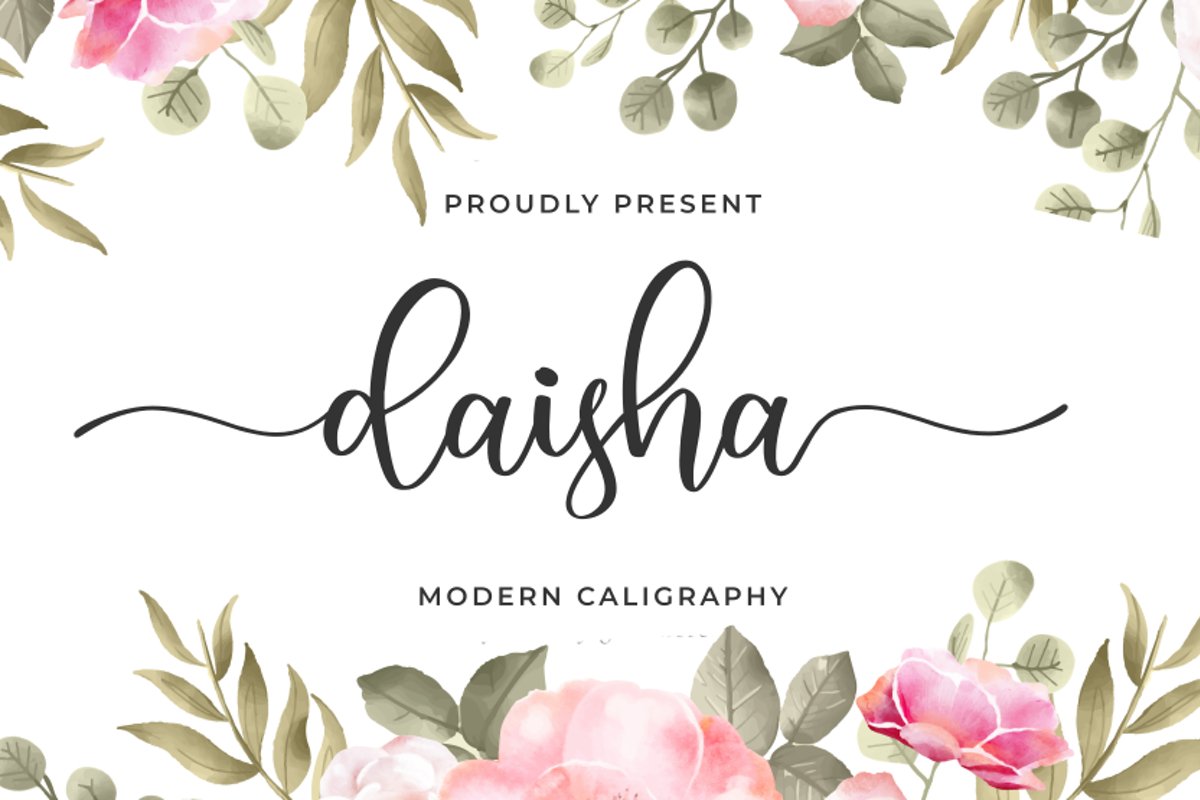
Daisha
Daisha is an incredibly beautiful script font. It has a classy, elegant, and modern look which can be used for logos, branding, invitations, stationery, wedding designs, social media posts, and much more!